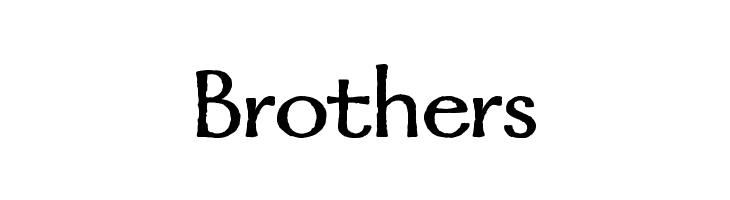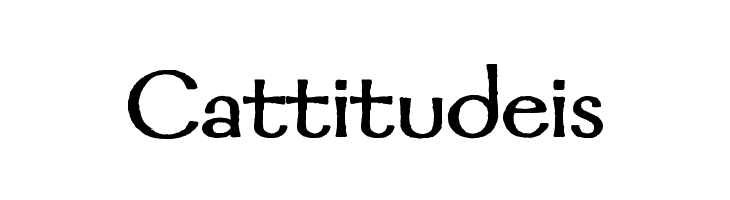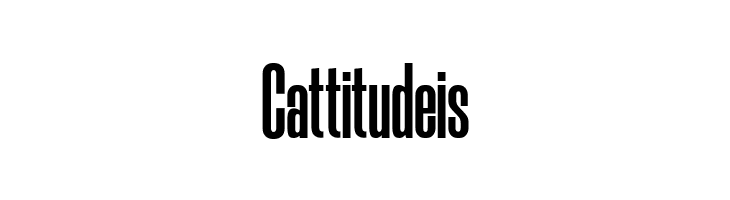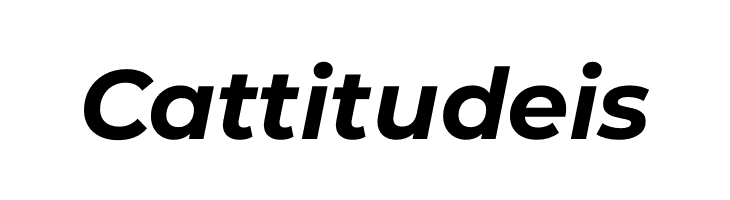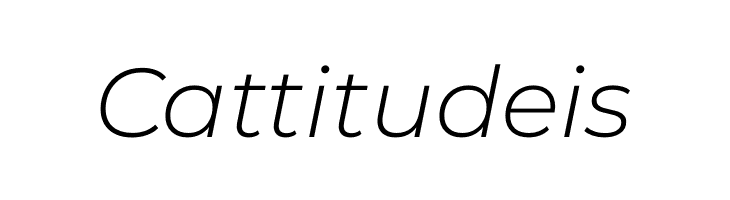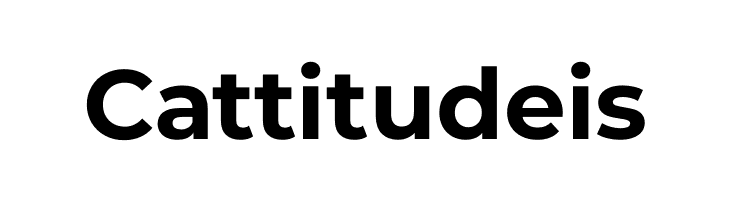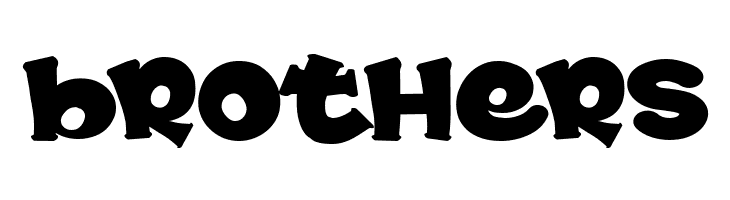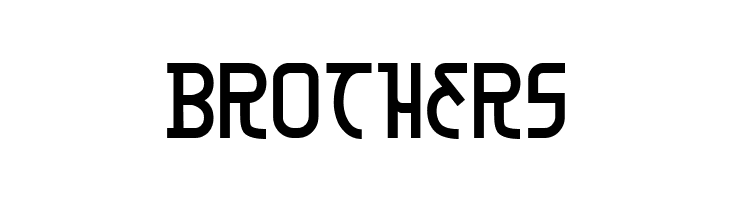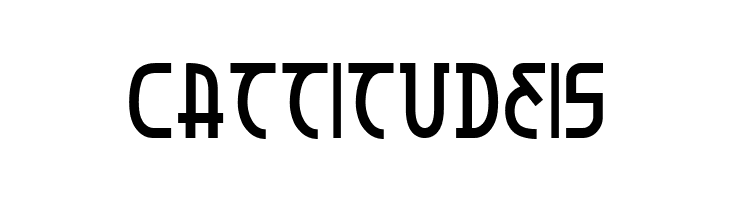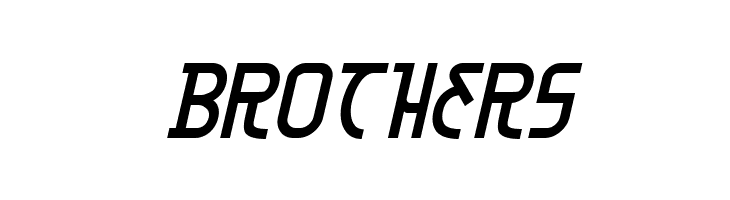
A bold, geometric font with strong lines and modern appeal.
A bold, italicized font with a dynamic and forward-leaning style.
A bold, modern sans-serif font with geometric shapes and balanced proportions.
A modern, bold, and italicized font with a sleek and compact design.
A modern, italic sans-serif font with clean lines and a dynamic feel.
A modern, light, and italic font with sleek geometric shapes.
A modern, geometric typeface with a subtle italic slant and consistent stroke width.
A modern, geometric sans-serif font with a clean and professional look.
A bold, modern sans-serif font with rounded characters.
A bold, italicized modern typeface with smooth curves and a dynamic style.
A bold, modern sans-serif font with geometric styling.
A bold, modern sans-serif font with clean lines and geometric shapes.
A bold, italicized font with a modern and clean aesthetic.
A bold, modern sans-serif font with clean lines and excellent readability.
A bold, modern sans-serif font with geometric structure and clean lines.
A bold, modern sans-serif font with clean lines and a strong presence.
A bold, playful font with exaggerated curves and a whimsical style.
A bold, rounded font with a modern and approachable style.
A modern, geometric font with a minimalist and sleek design.
A clean, geometric font with rounded edges and consistent stroke width.
A bold, modern font with geometric and futuristic elements.
A playful, handwritten font with tall, narrow letters and rounded edges.
A bold, playful font with rounded, bubbly characters and a whimsical style.
A bold, playful handwritten font with thick, rounded strokes and a lively appearance.
A bold, angular, and decorative font with a futuristic and aggressive style.
A bold, hand-drawn font with a medieval, whimsical style.